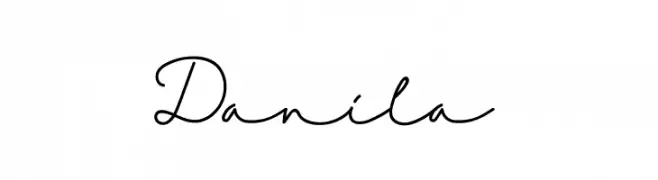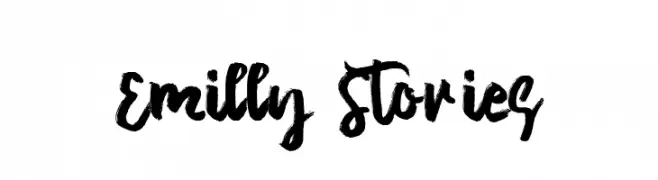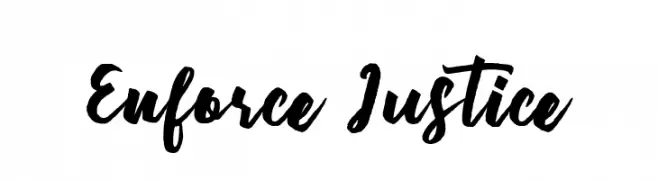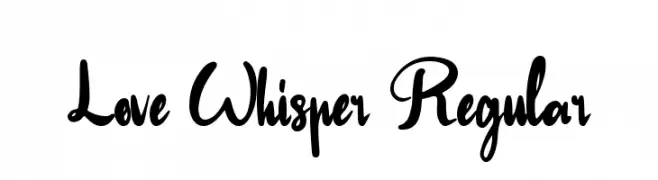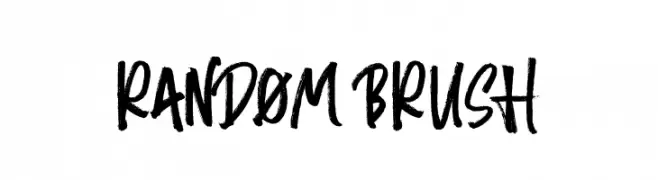
A bold, brush-style font with high contrast and dynamic character shapes.
A playful and elegant script font with fluid, connected letterforms.
A bold, expressive script font with a hand-drawn, connected style.
A casual, handwritten font with a playful and informal style.
A bold, brush-style font with a hand-painted, expressive look.
A bold, brush-style font with a dynamic, hand-painted look.
A cursive script font with elegant, flowing lines and interconnected letters.
An elegant, flowing script font with a handwritten style.
An elegant, flowing script font with interconnected characters and a sophisticated appearance.
A dynamic, handwritten font with fluid strokes and a playful, expressive style.